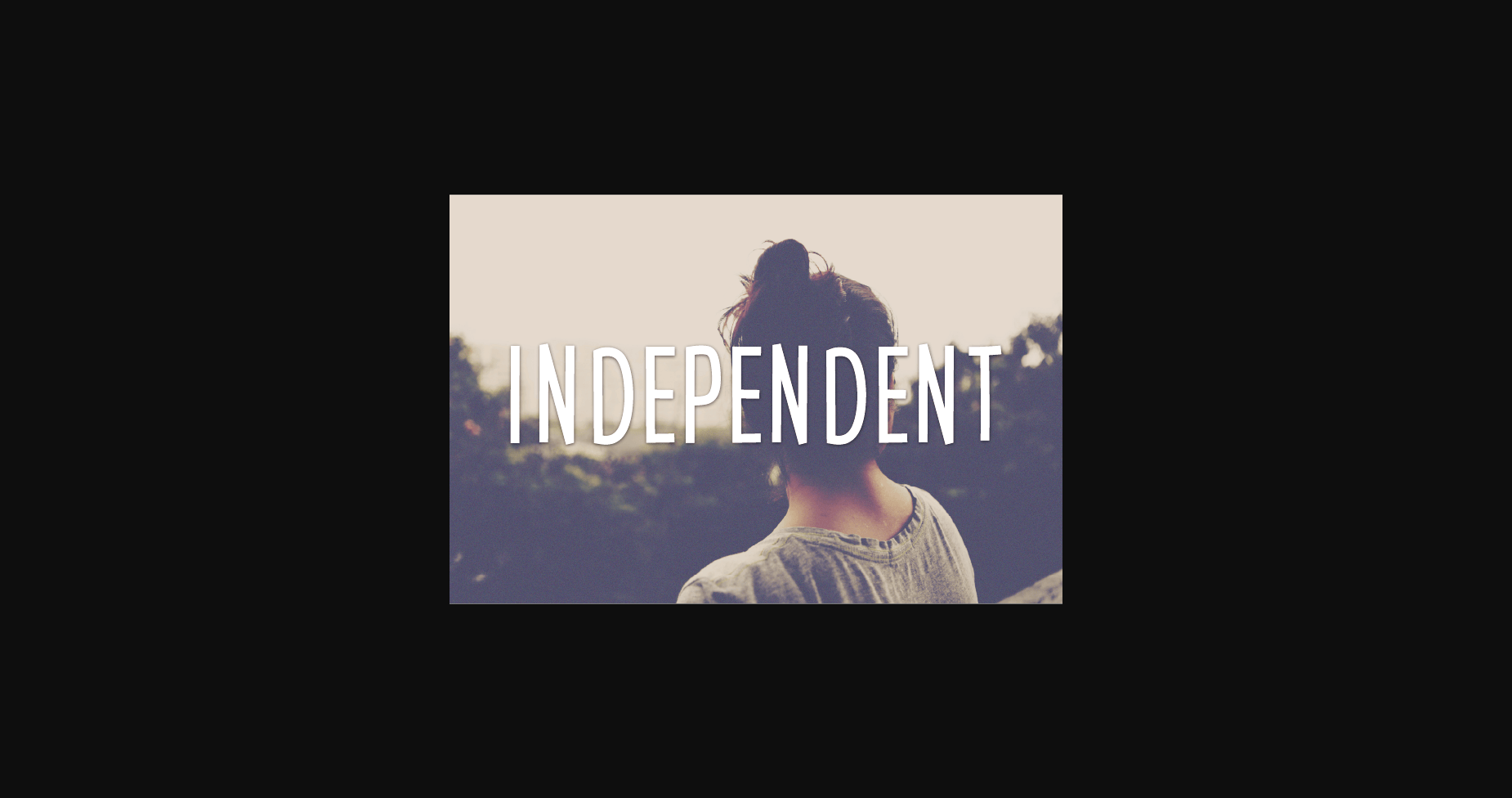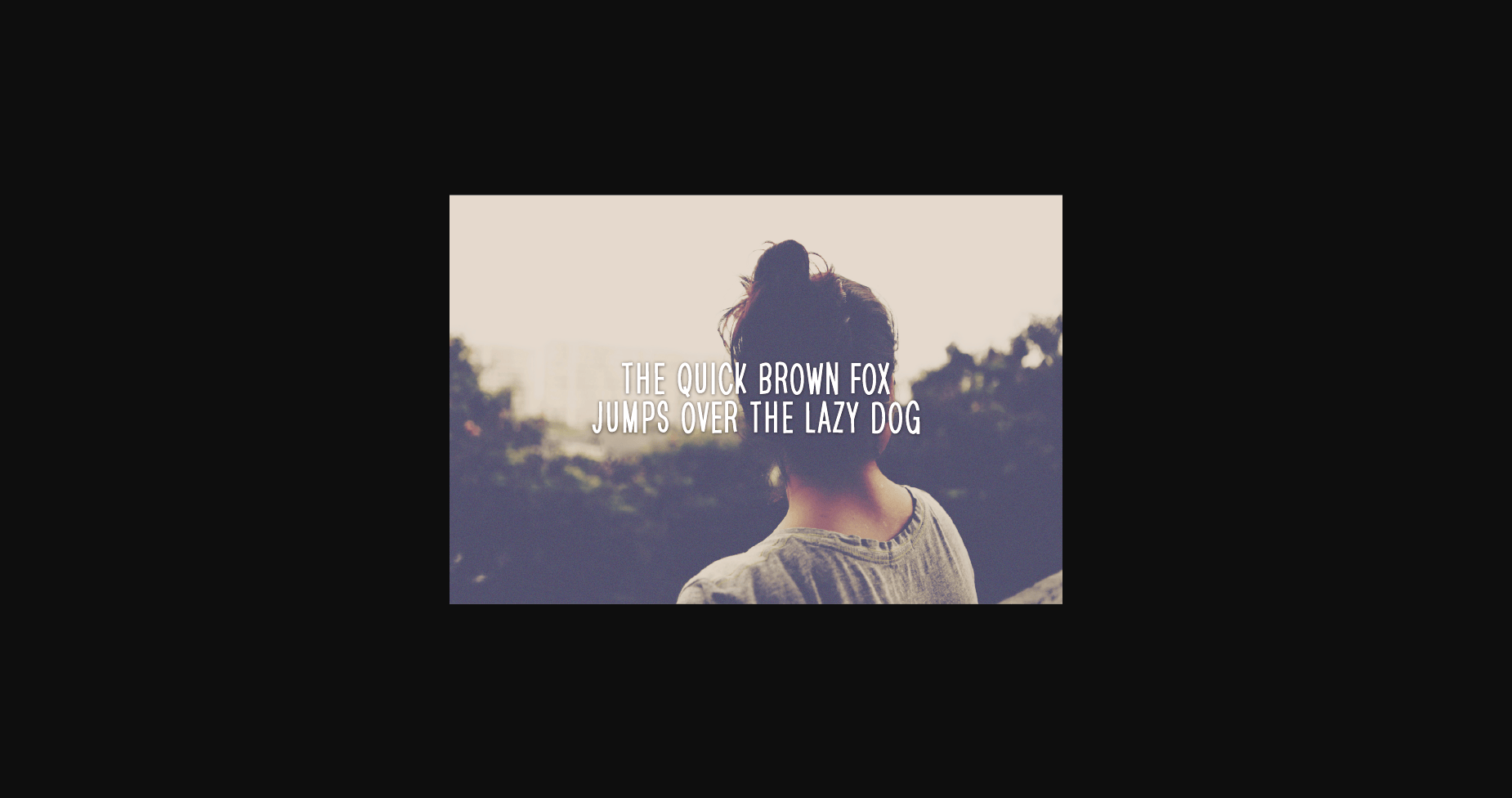
HomeSans Serif FontsIndependent Font Sans Serif Fonts Independent Font FacebookXPinterestWhatsApp 1 of 6 ... Independent Font Poster 2... Independent Font Poster 3... Independent Font Poster 4... Independent Font Poster 5... Independent Font Poster 6... About Independent Font Independent is a beautiful sans serif font that will make a wonderful asset to your collection. Add it to your logos, quotes, T-shirts, greeting cards, business cards, and many more, and make them outstanding! DOWNLOAD NOW People also explored Farming Font Panoptic Font Indigo Summer Font Pencil Kid Font Monkey Mayhem Font East Octopus Font Attractive Font Vampire Heart Font Javiersa Font 366 0 TagsIndependent Font Previous articleBehavioral FontNext articleFaithful Font LEAVE A REPLY Cancel reply Comment: Please enter your comment! Name:* Please enter your name here Email:* You have entered an incorrect email address! Please enter your email address here Website: Save my name, email, and website in this browser for the next time I comment. Personal Use Free Abberancy Personal Use Free Read more about this font Trunk Shaped Personal Use Free Read more about this font Madison Script Personal Use Free Read more about this font Latifah Personal Use Free Read more about this font BLOG Using Fonts in Digital Marketing: Tips to Strengthen Your Brand Identity In the realm of digital marketing, every visual element plays a crucial role in shaping a brand's identity, and fonts are no exception. The... Elegant Wedding Invitation Fonts – Handwritten & Script Fonts Transform Your Website: Elevate Your Typography with 7 Best Web Font Generators Best Fonts for YouTube Videos: Make Your Thumbnails Stand Out